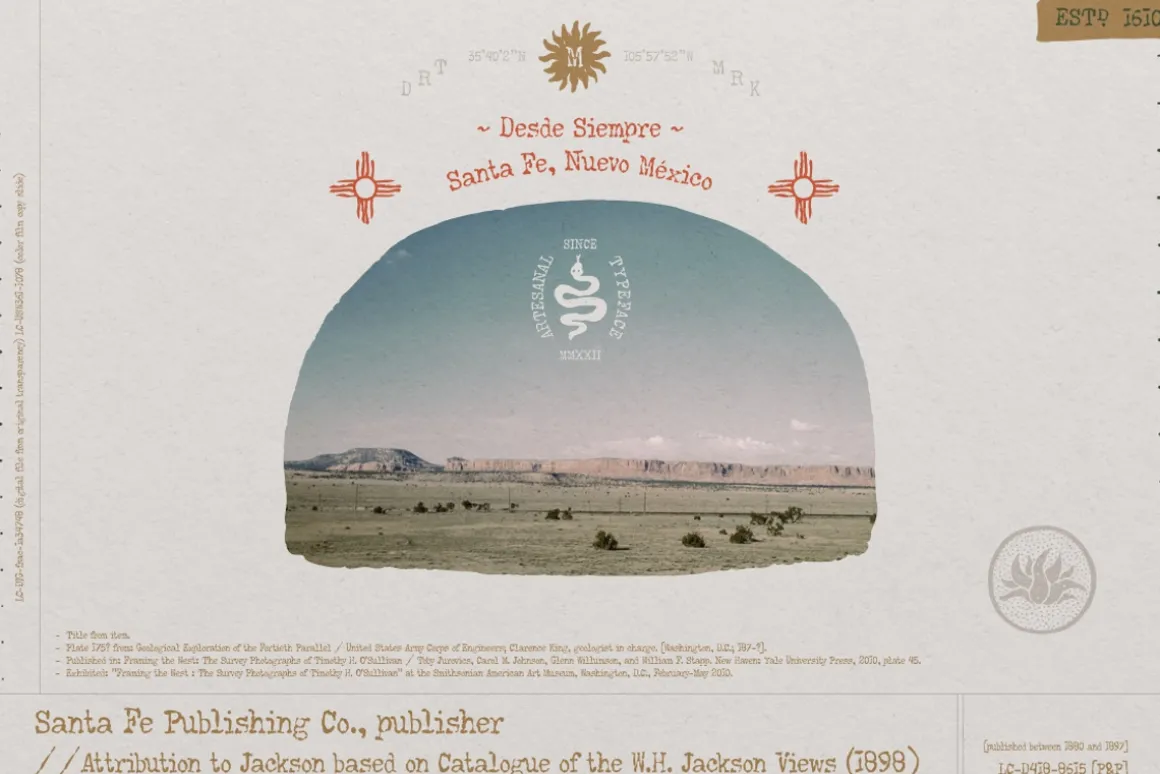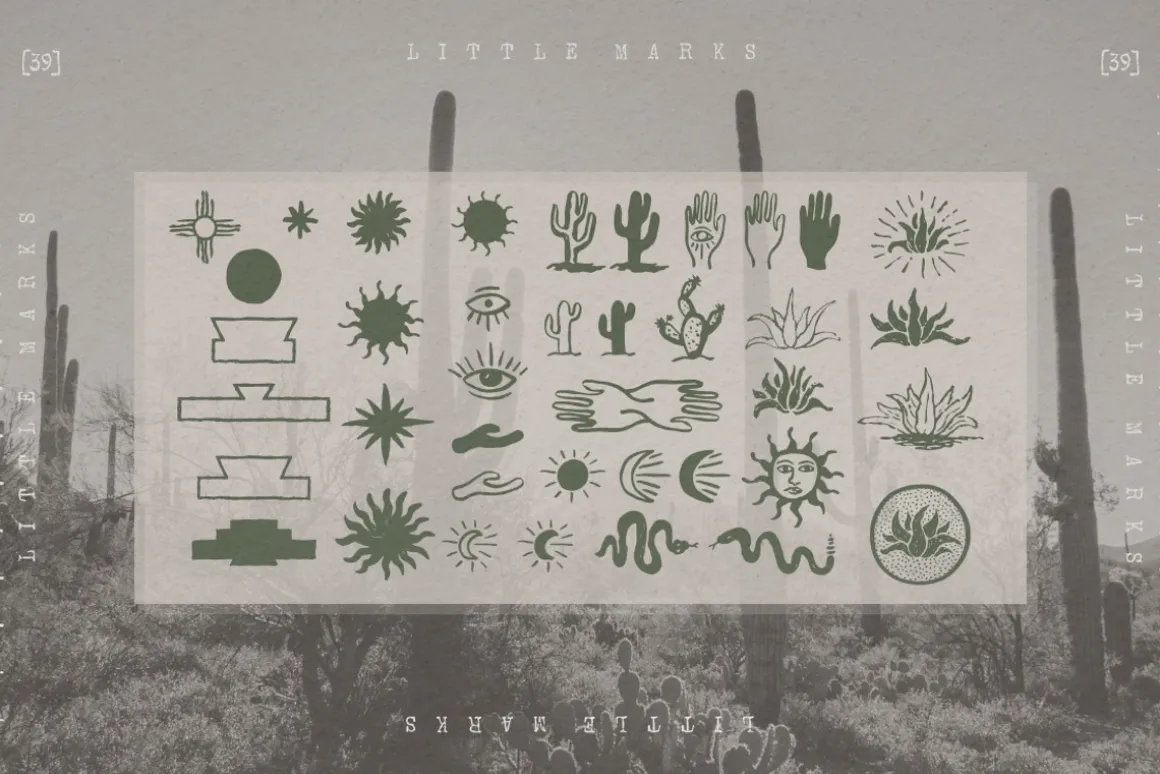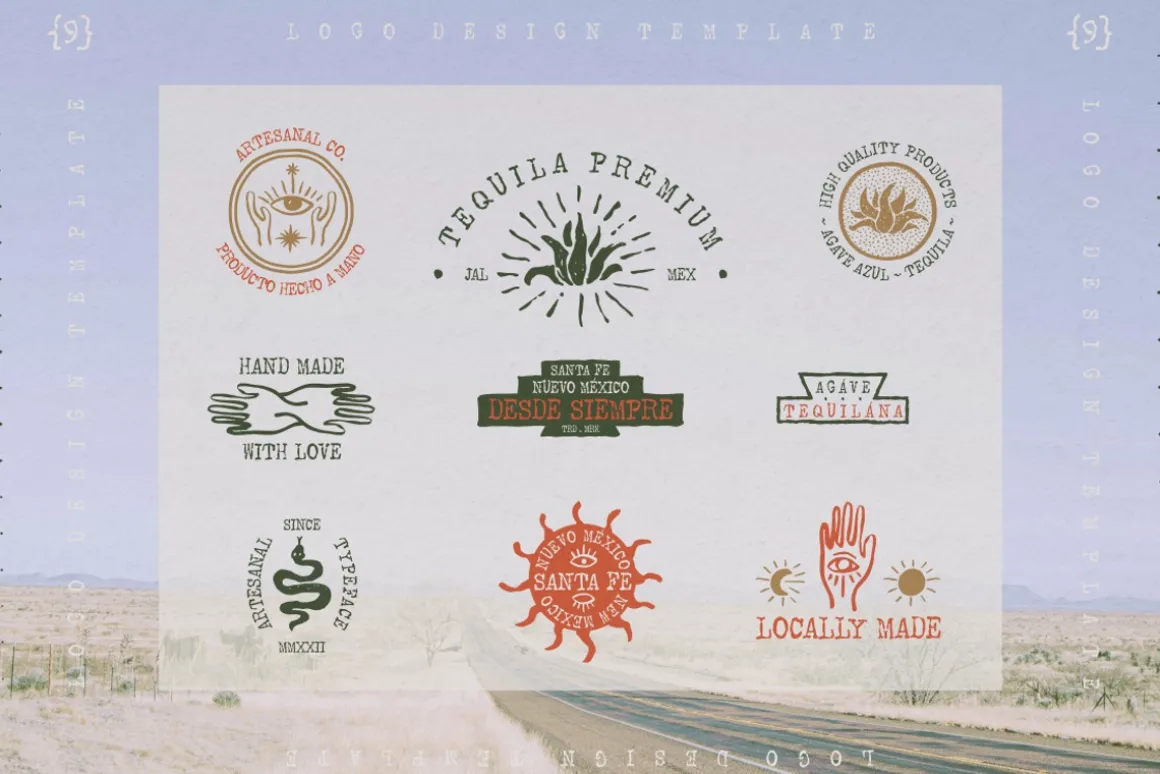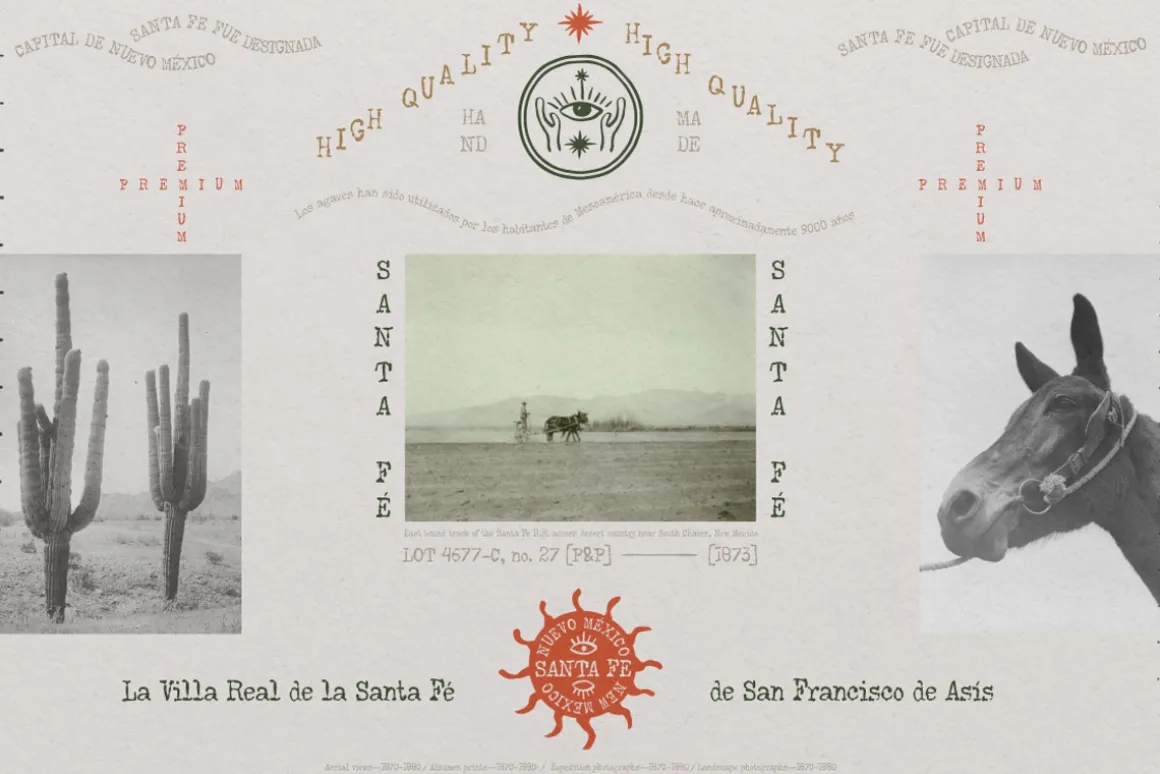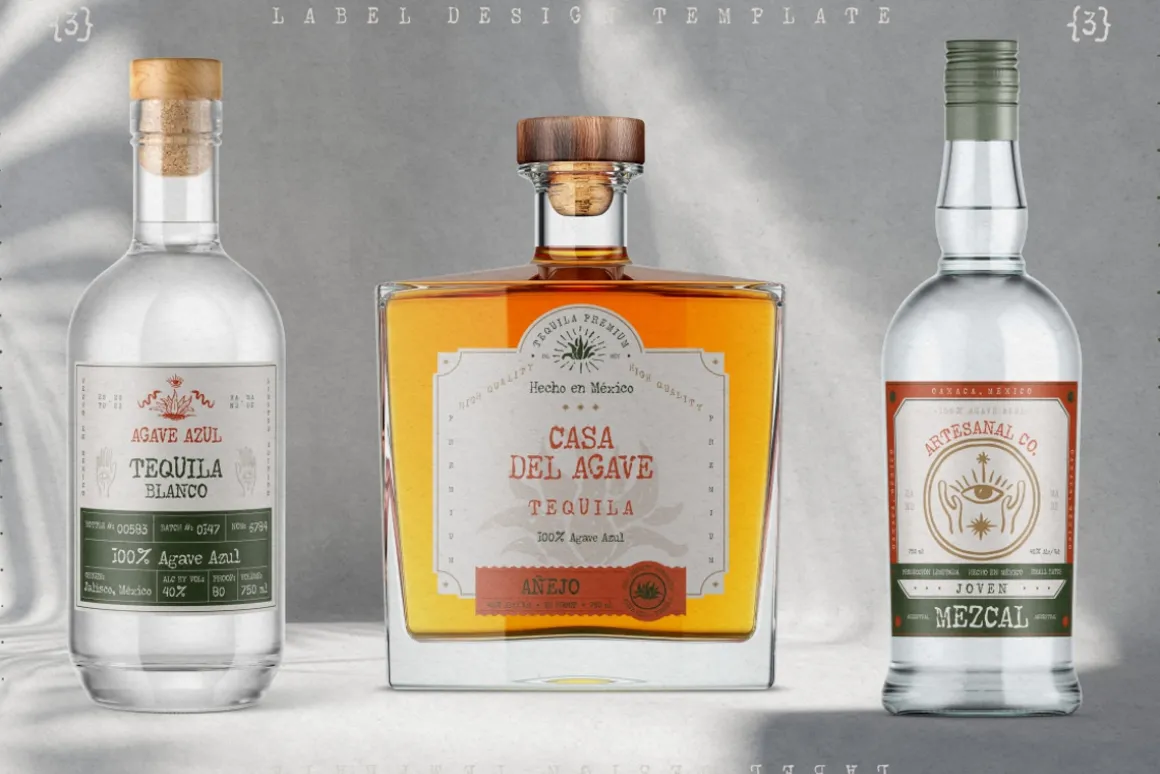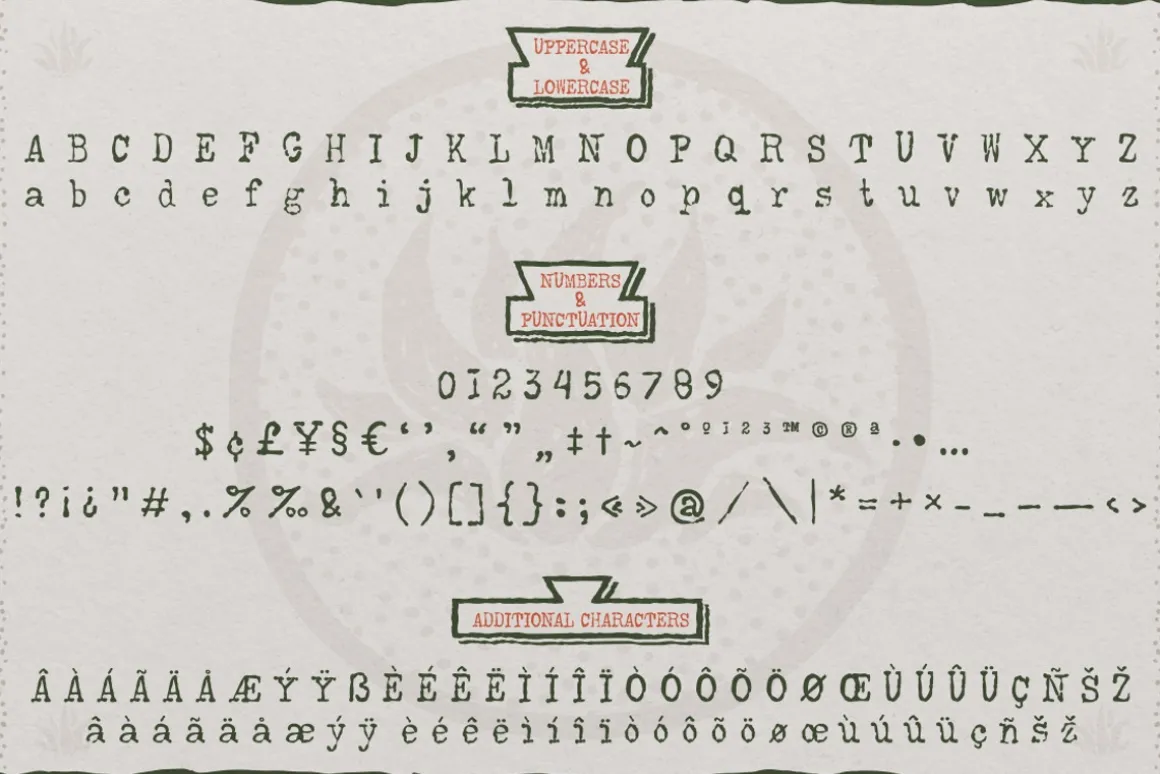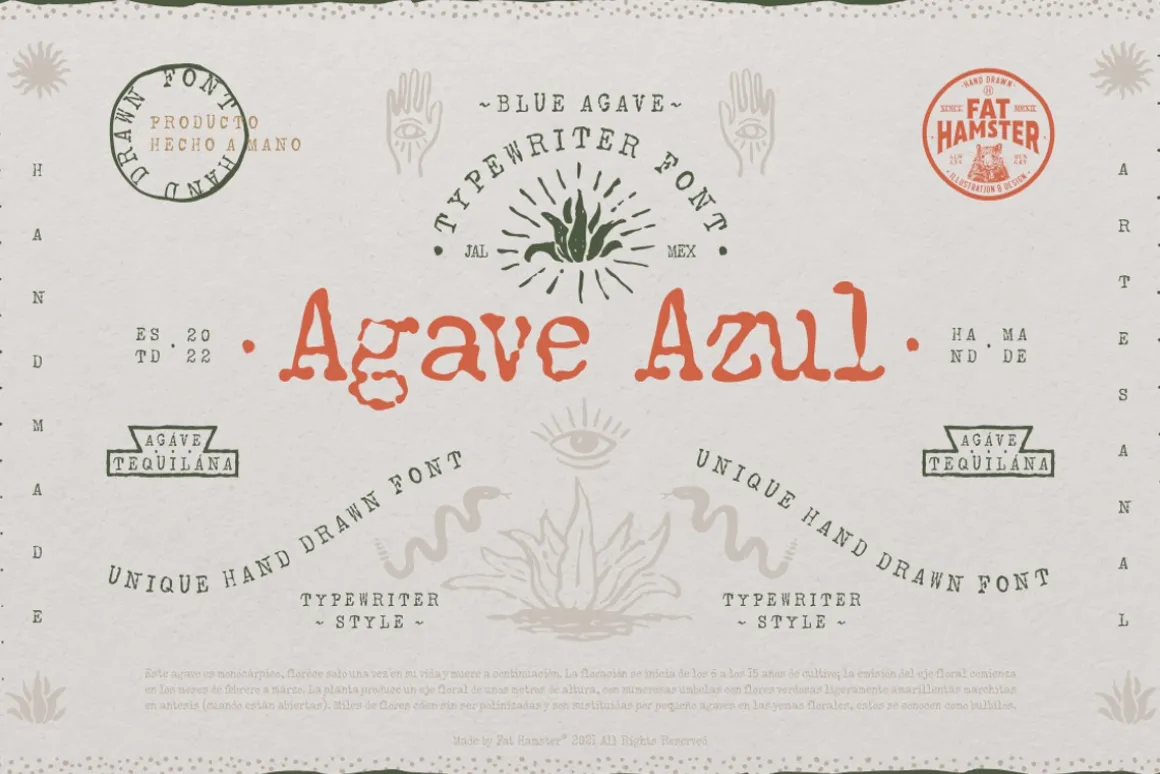
Agave Azul – Hand made old typewriter font
Agave Azul Artisan font is perfect for tequila & mezcal label and packaging design, social media quotes, logo & branding design, apparel design, whiskey, beer label and packaging design, heading, scrapbooking, calendars, book covers. Don’t forget to use bonus logos, marks and labels for your designs.